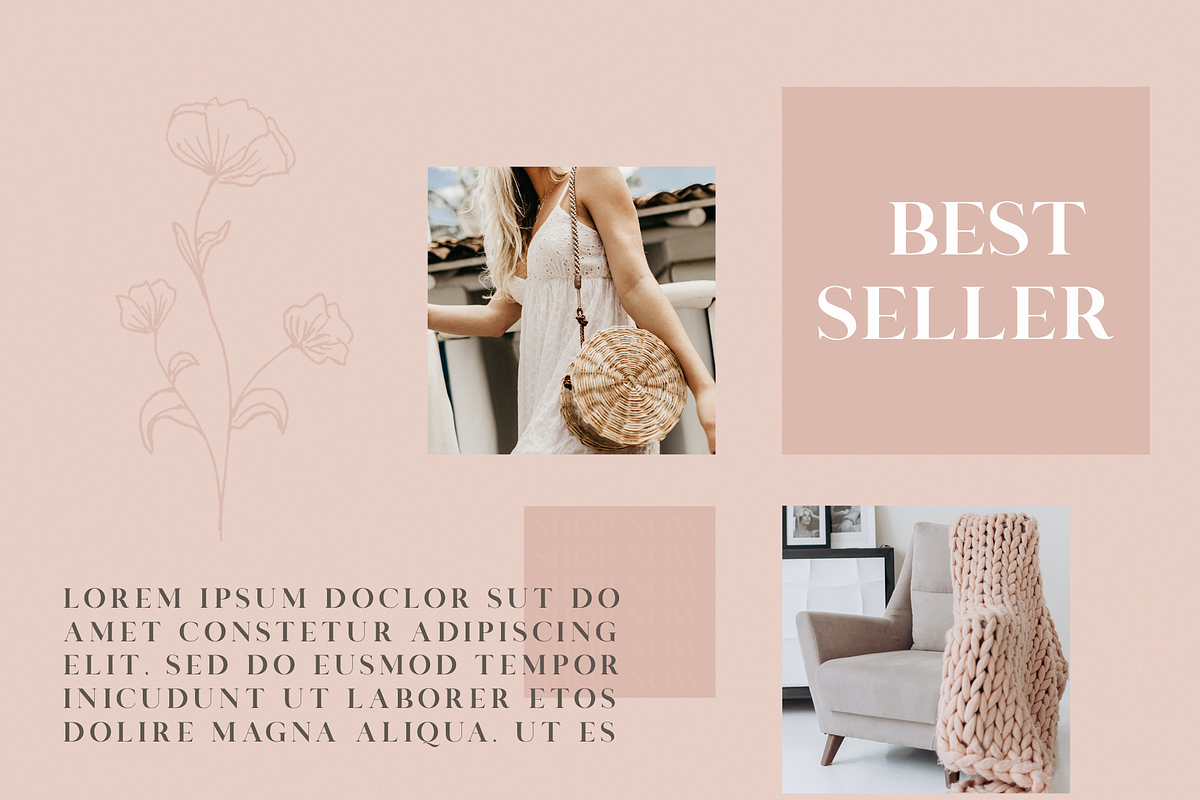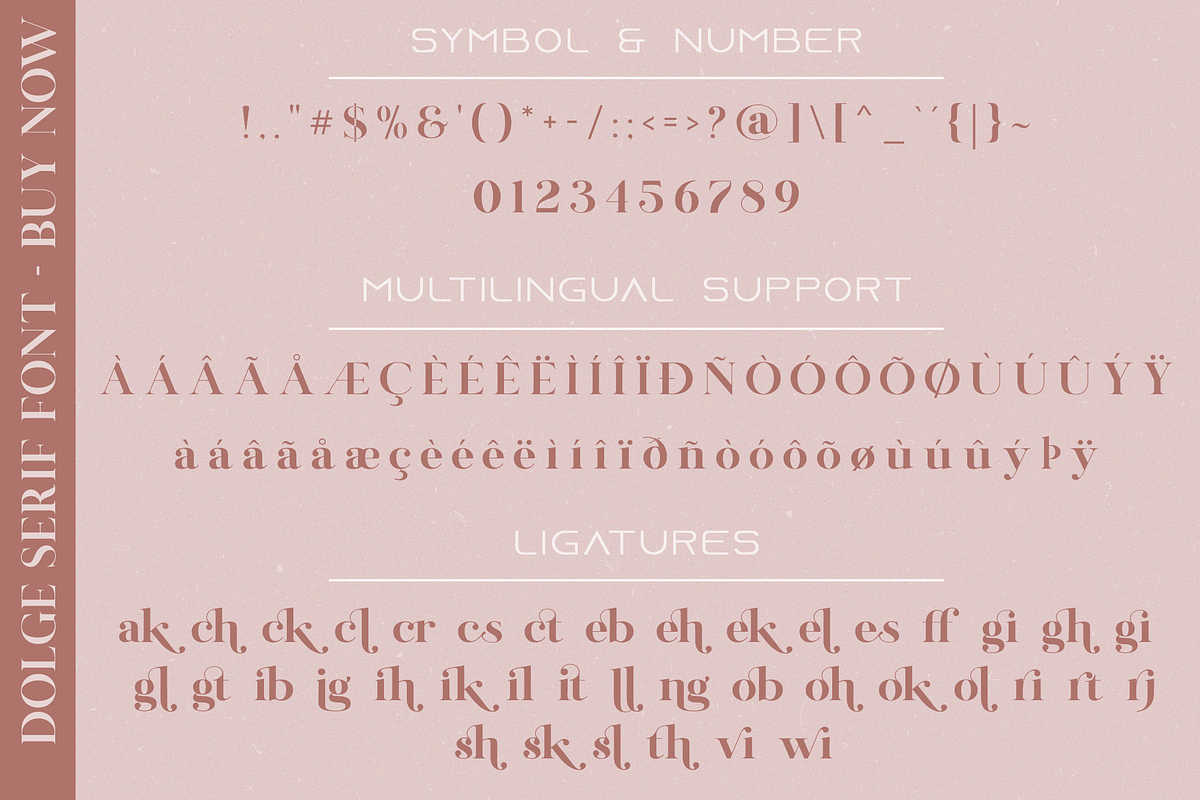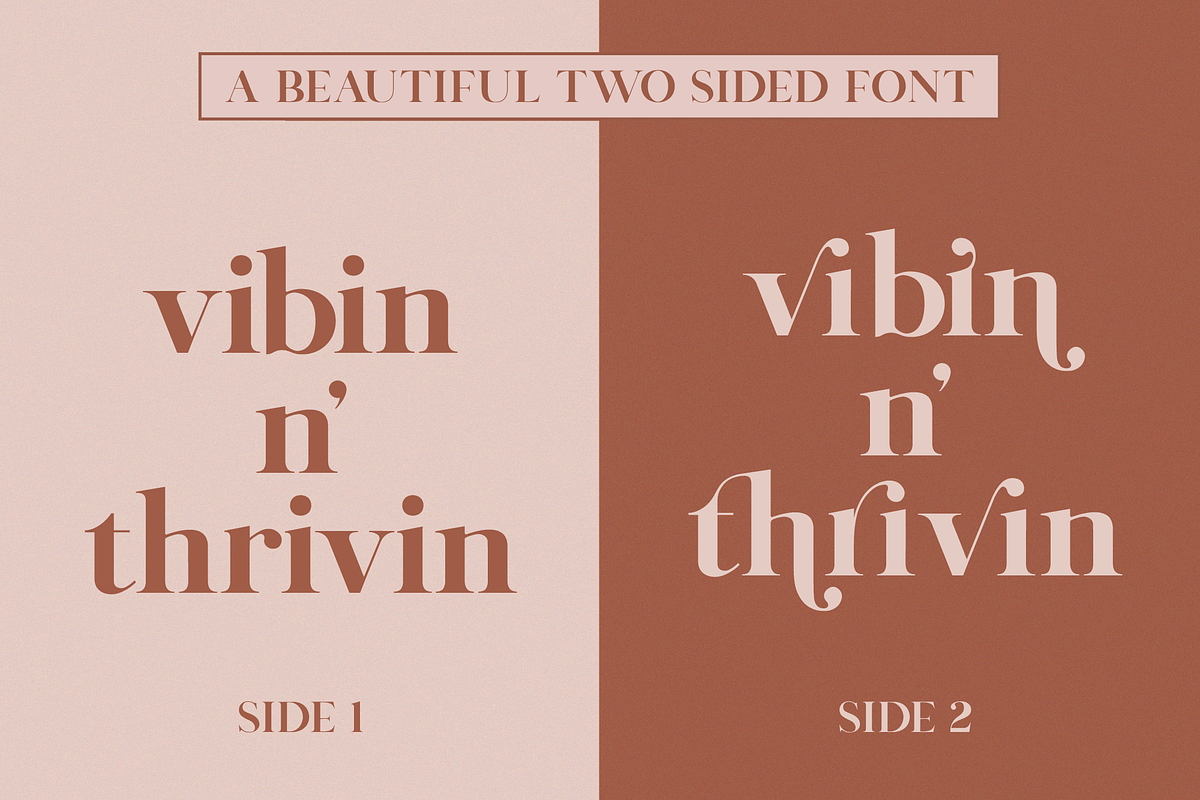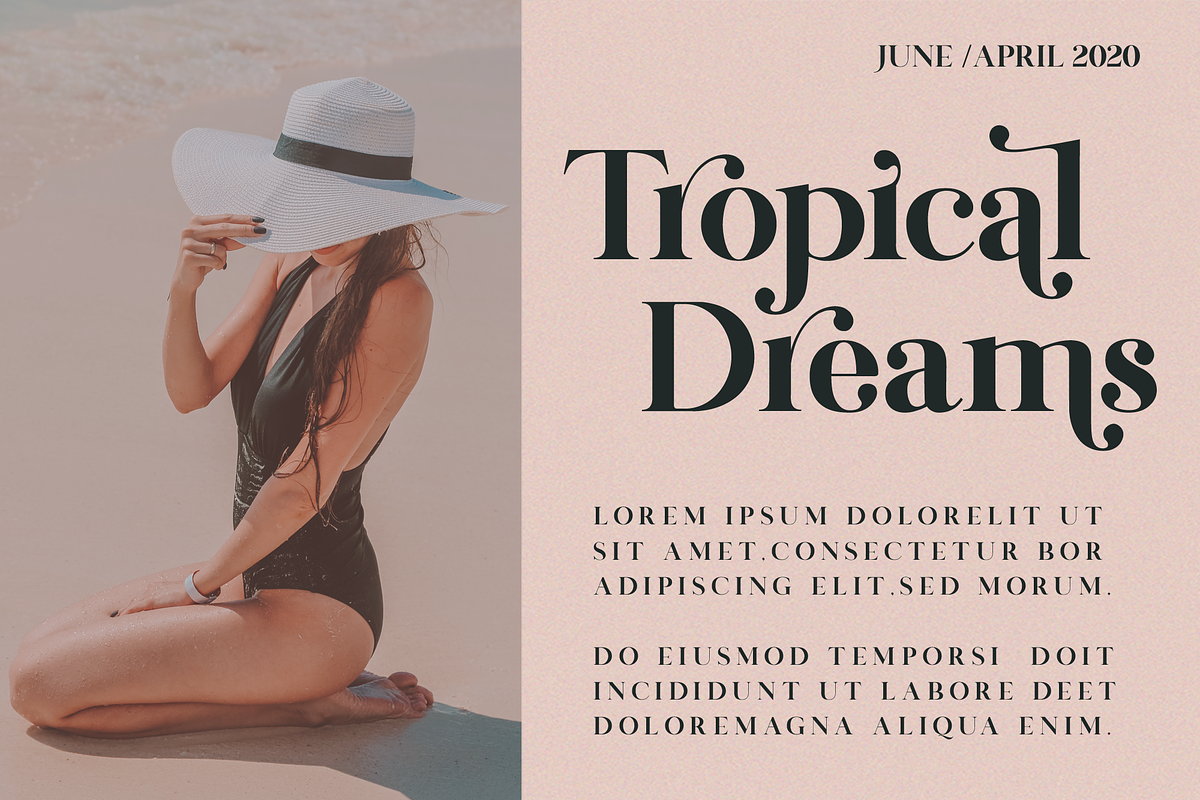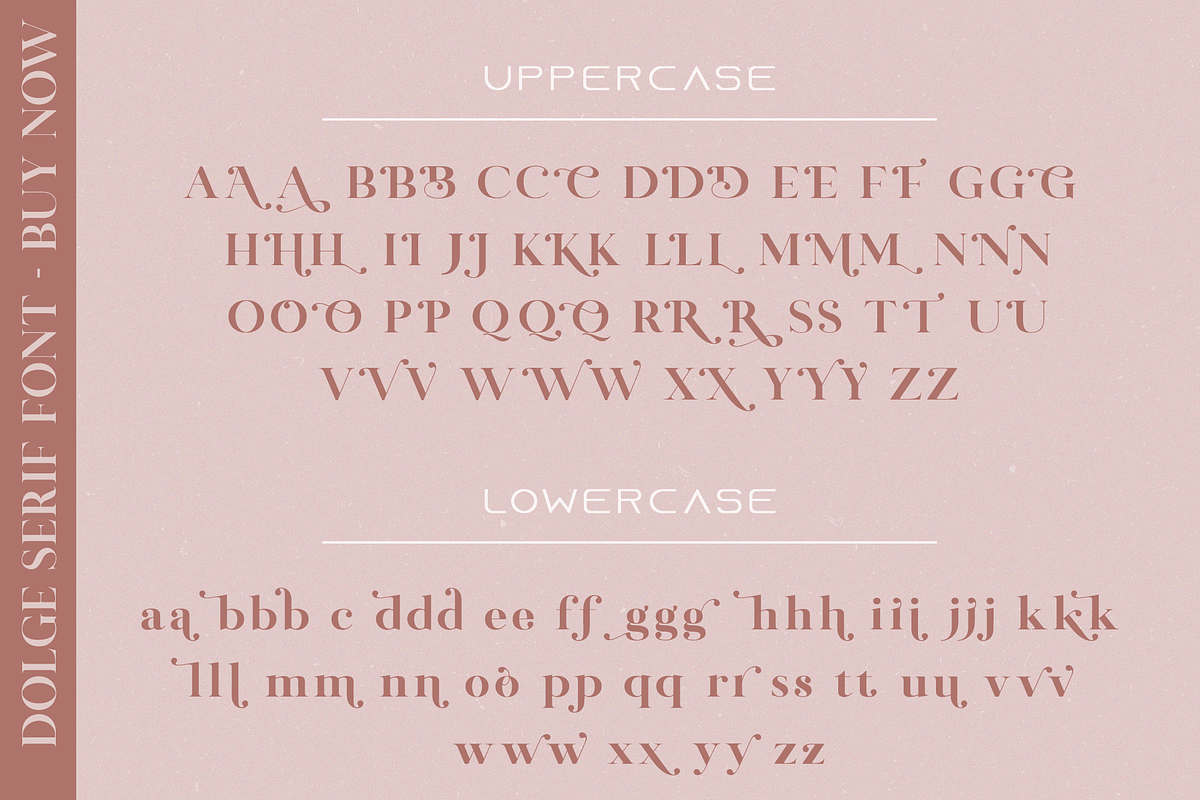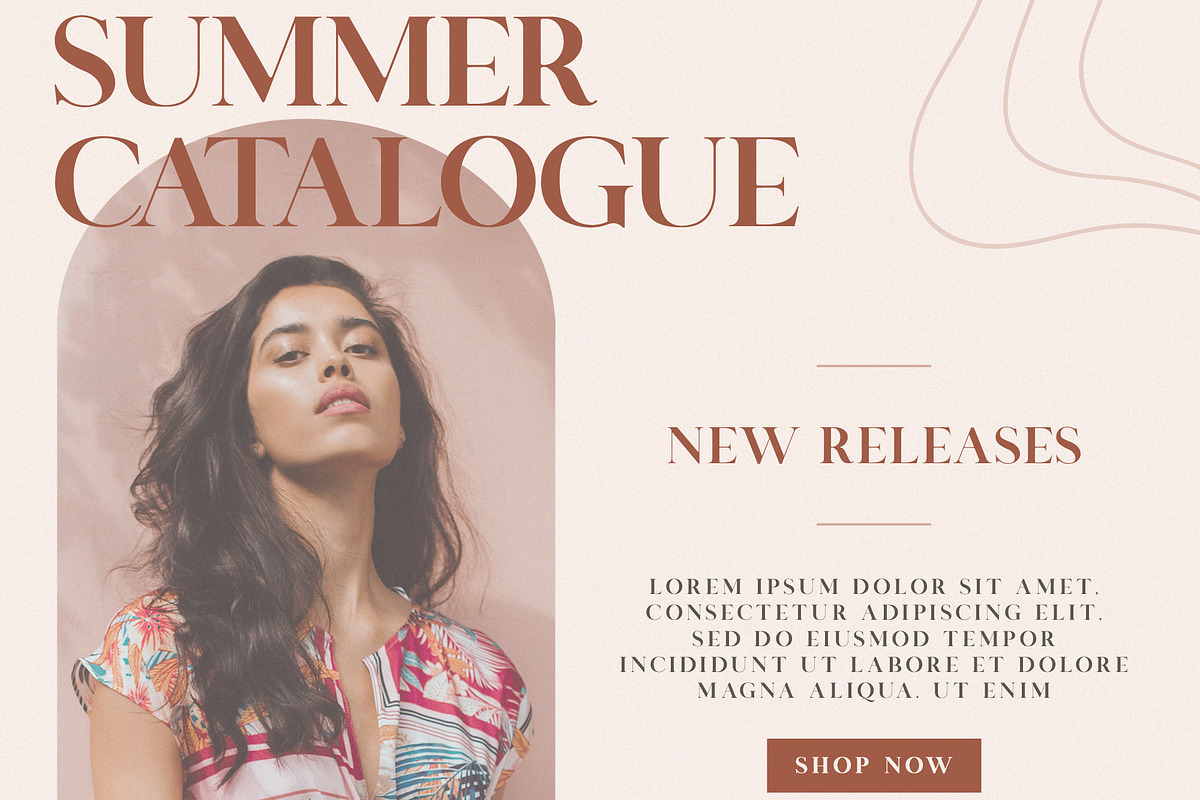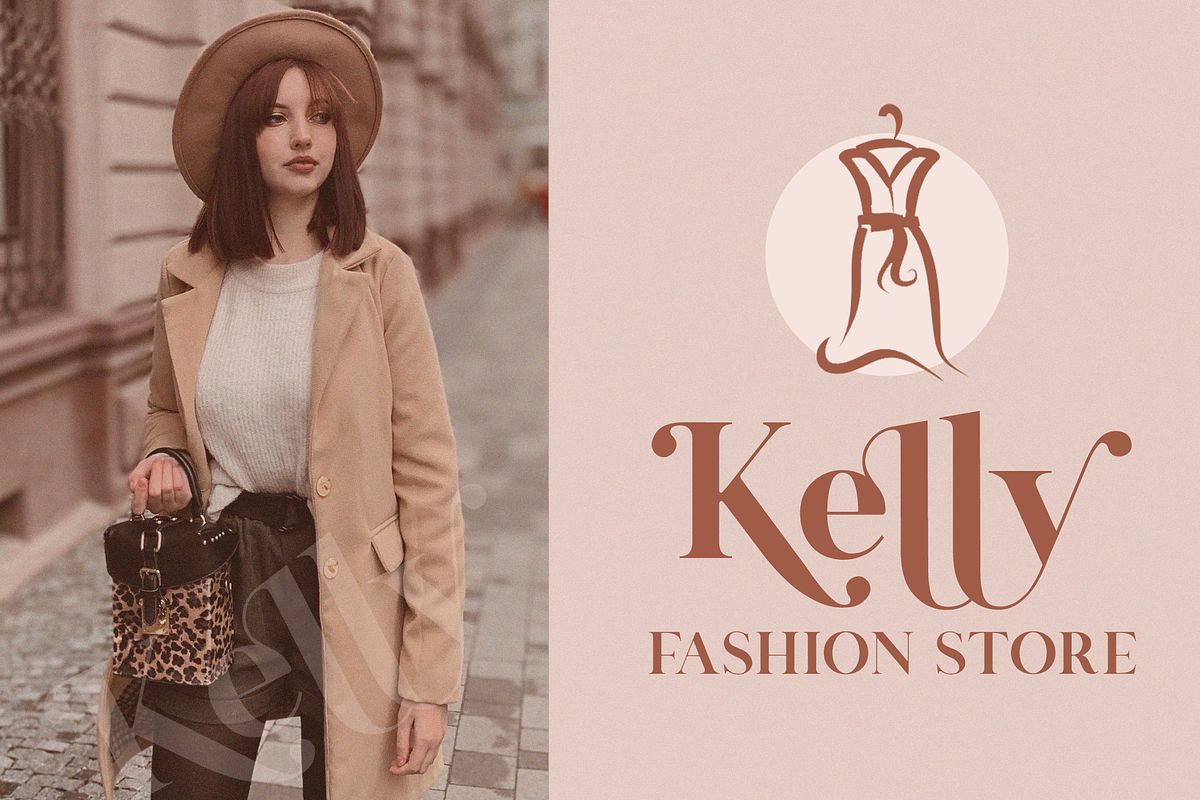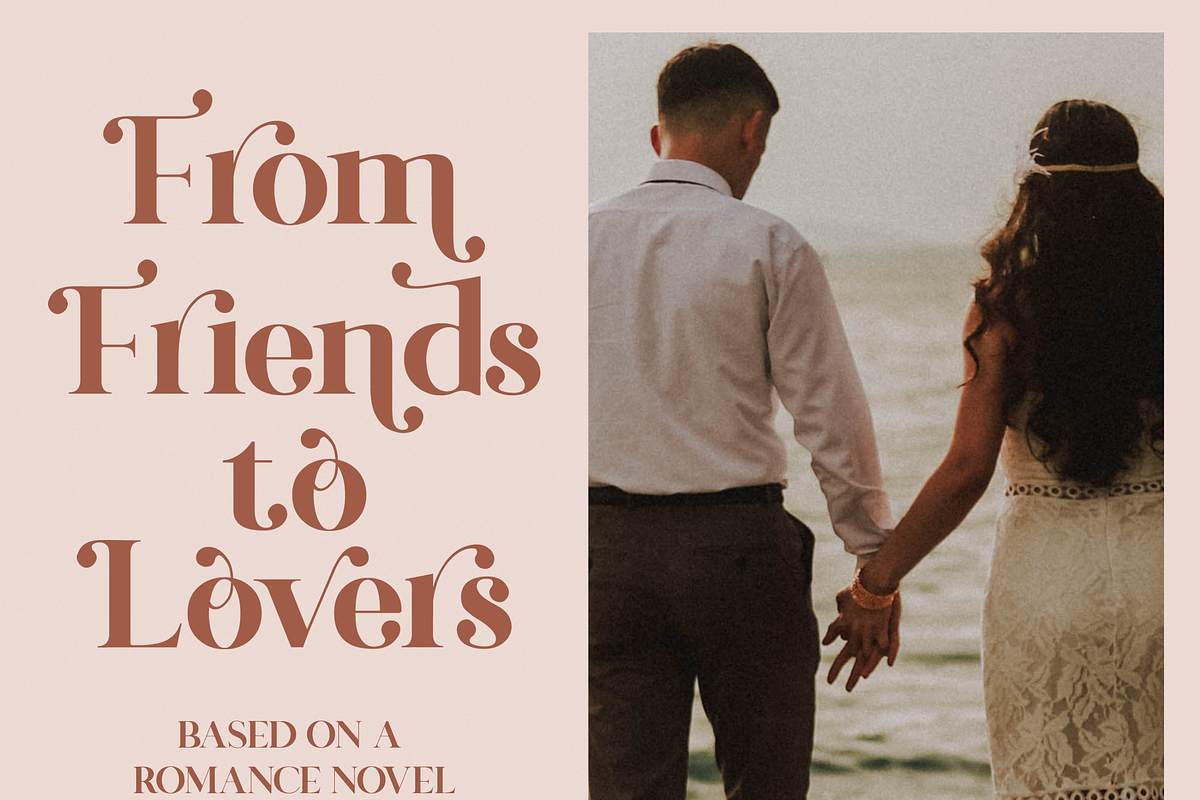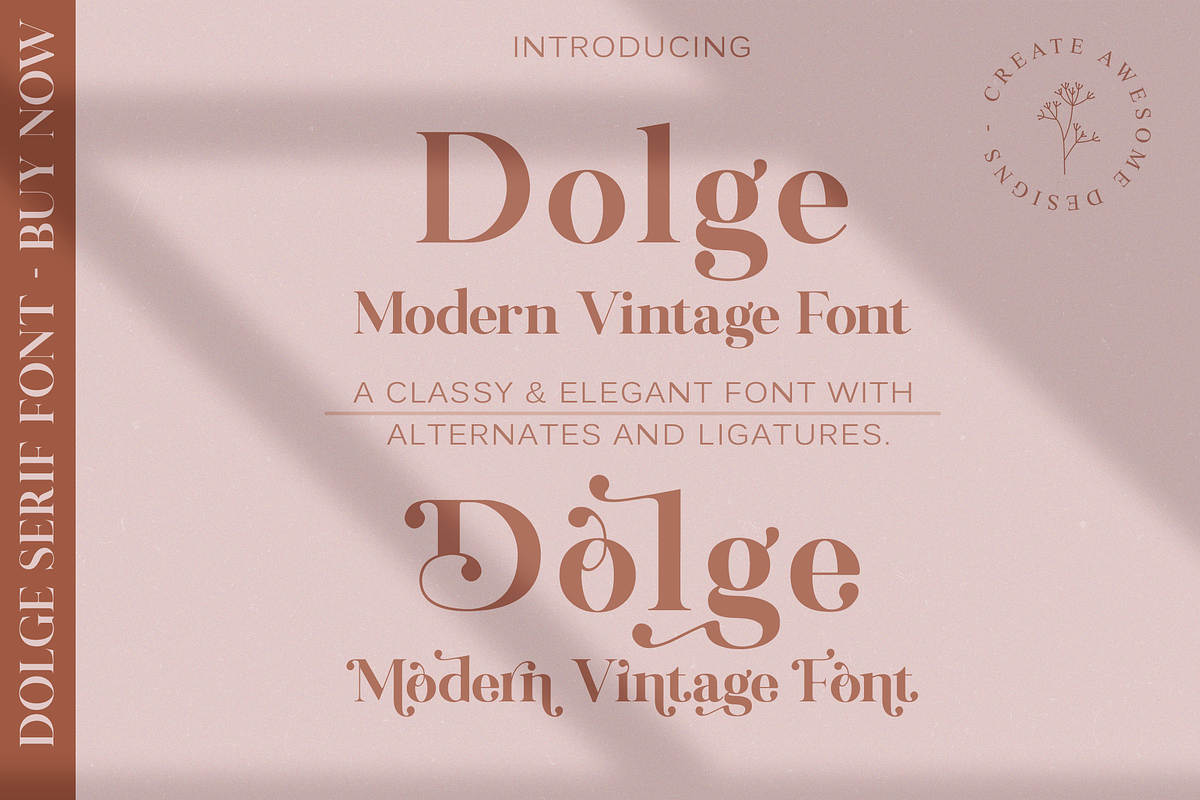
Dolge Serif Font-Modern/Vintage Font
Introducing "Dolge Serif Font" - A modern/ vintage typeface with a large selection of alternative uppercase and lowercase letters that can be combined to create unique and beautiful designs.
Dolge Serif Font is a very versatile font and can be used for a wide range of projects such as minimalist designs, logos, wedding invitations, branding, advertising, t-shirts, letterhead, posters, magazine design, quotes, badges and so much more.